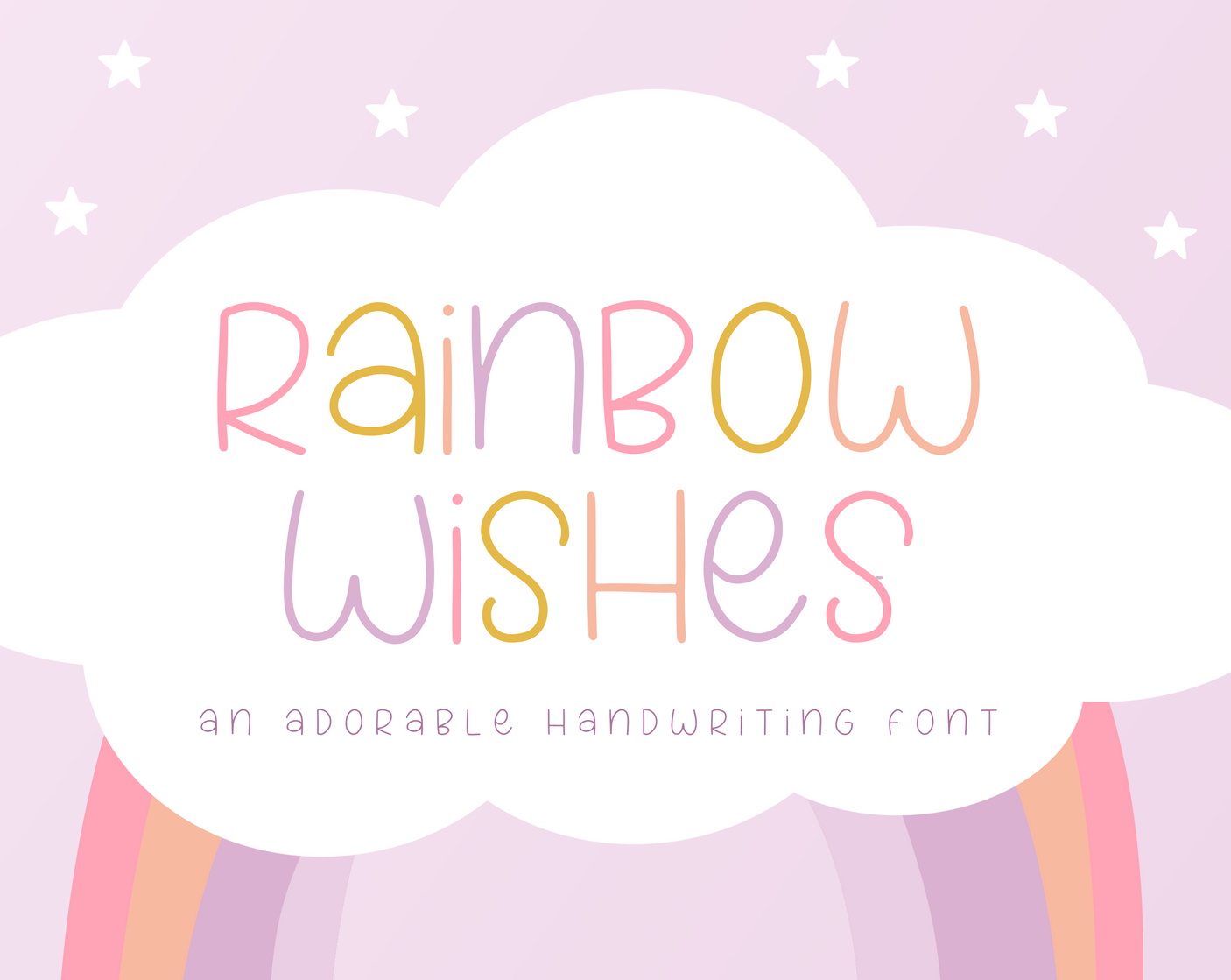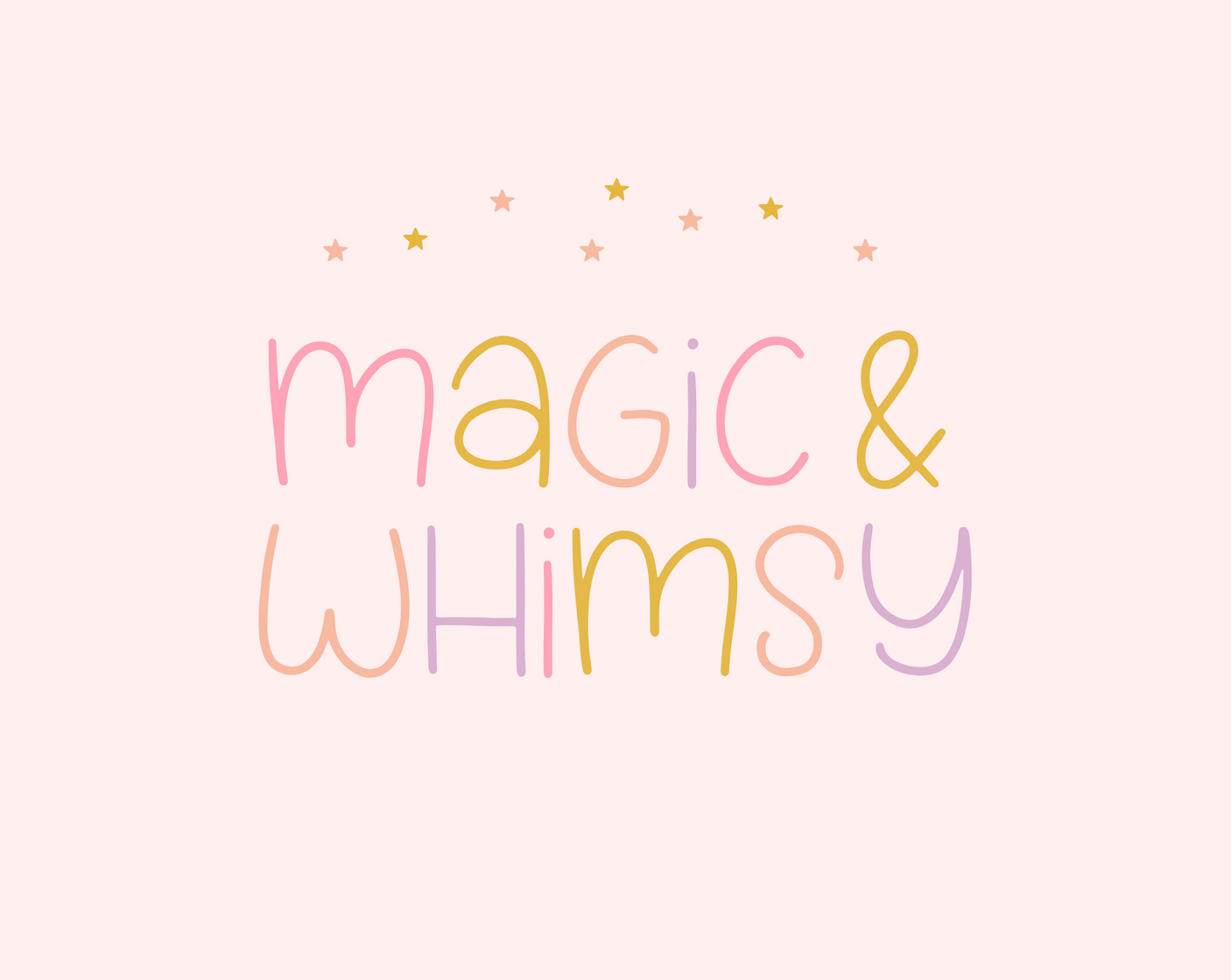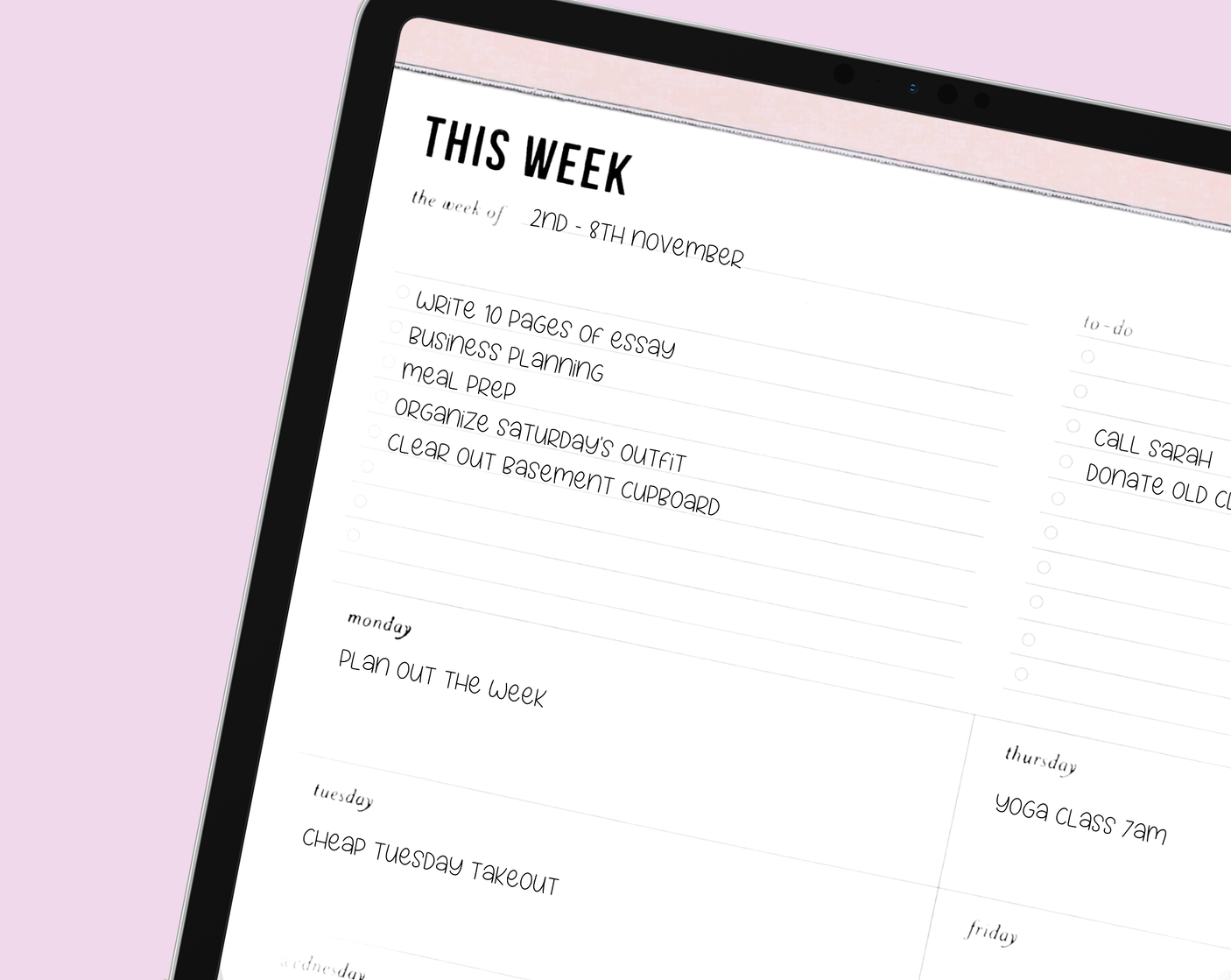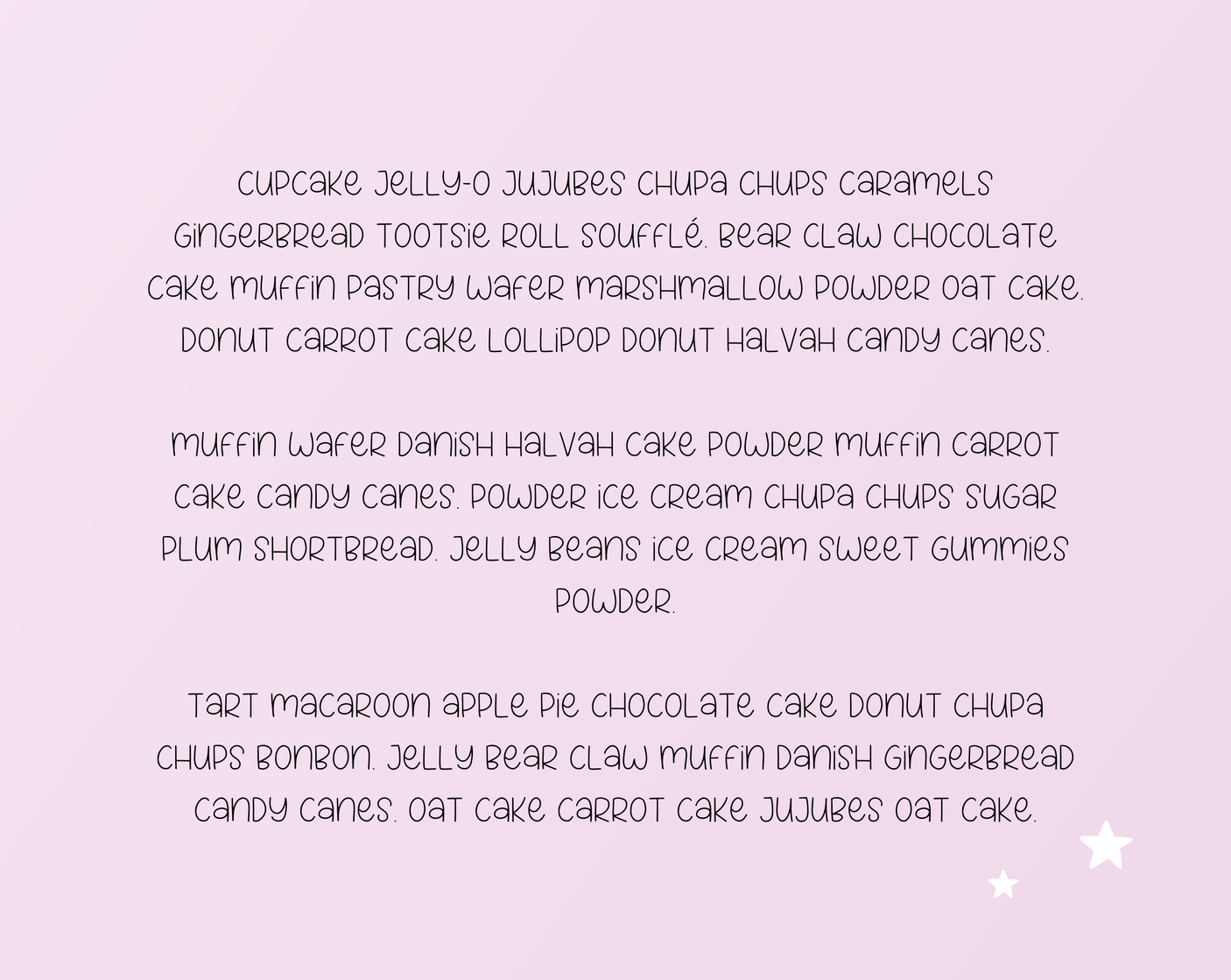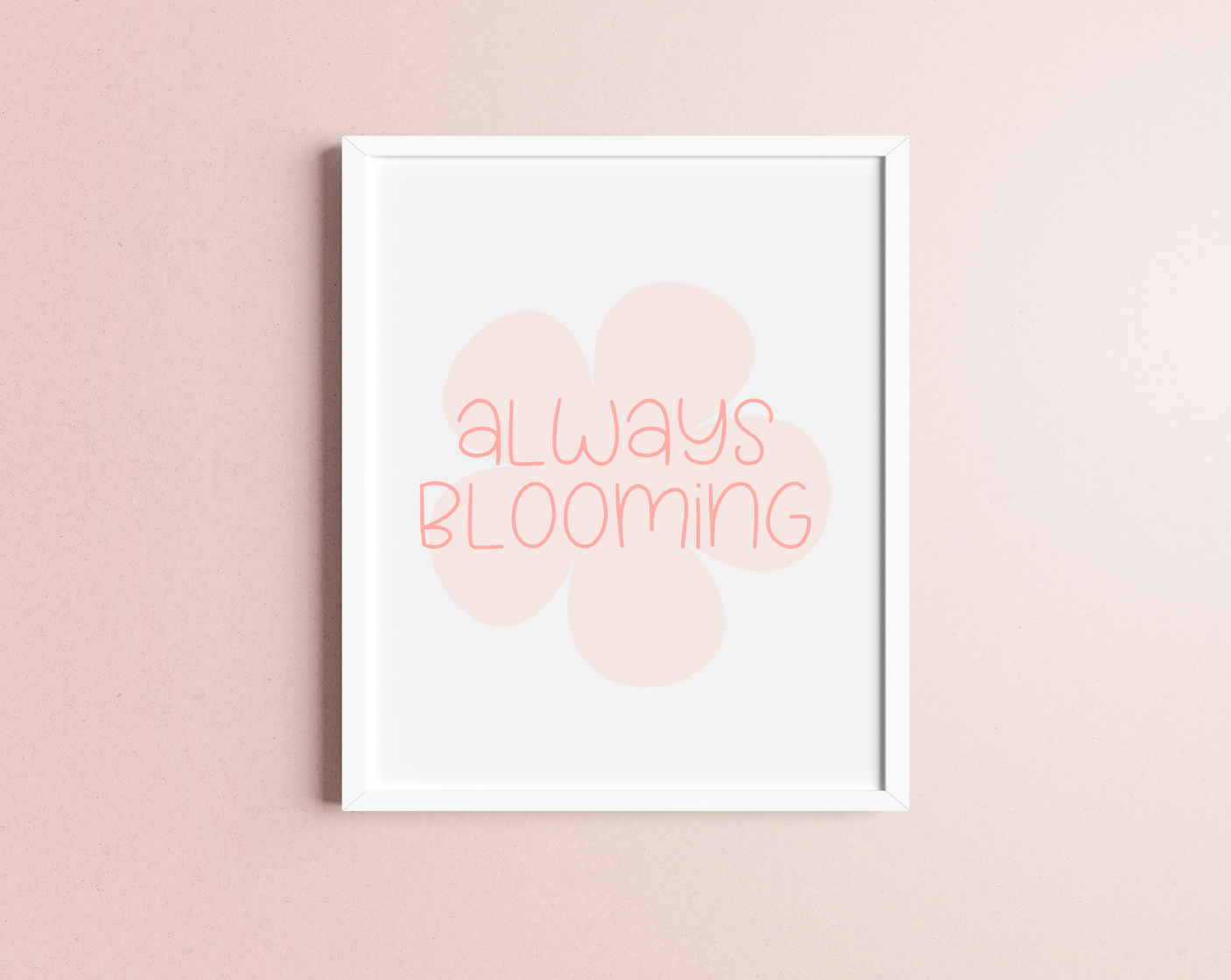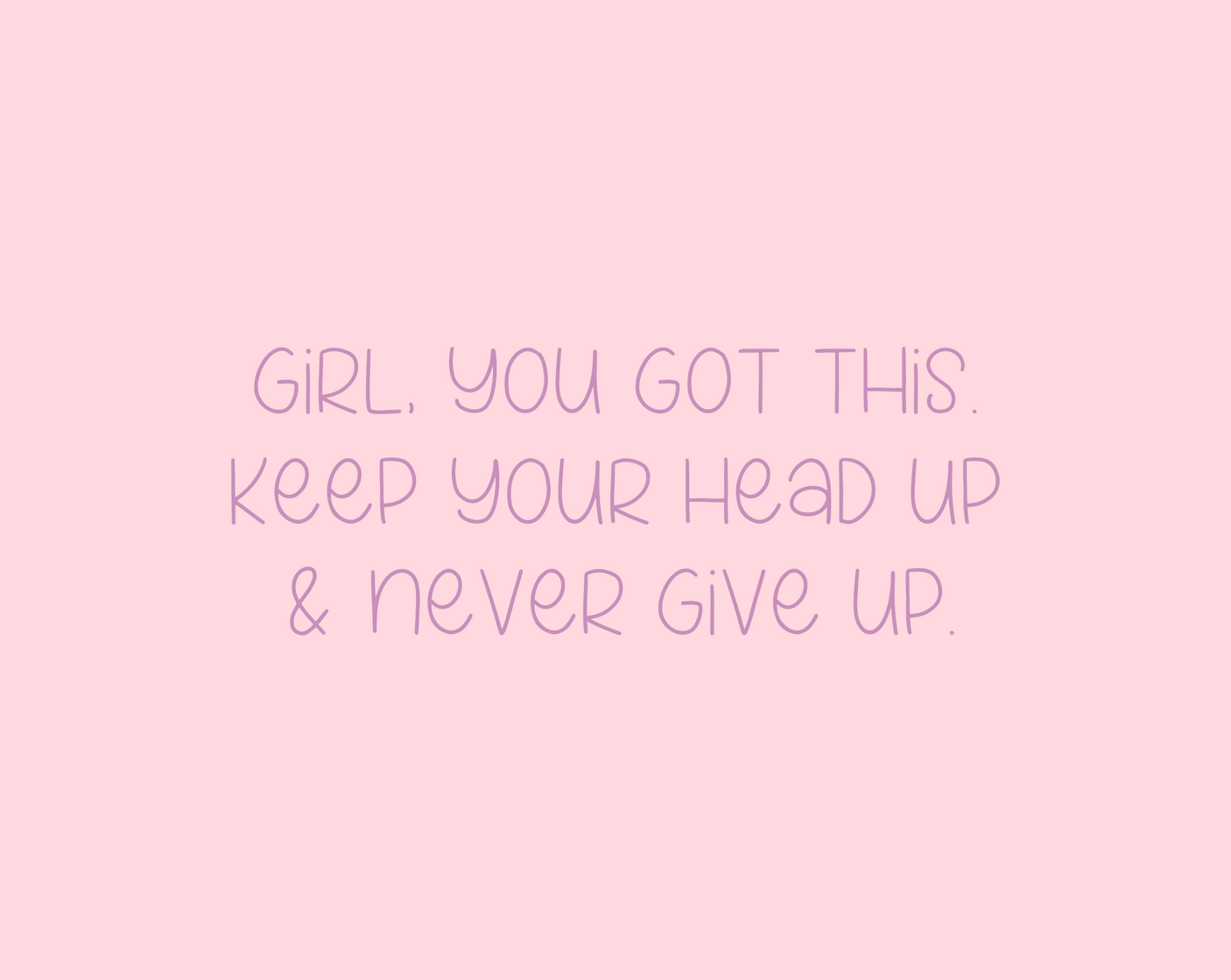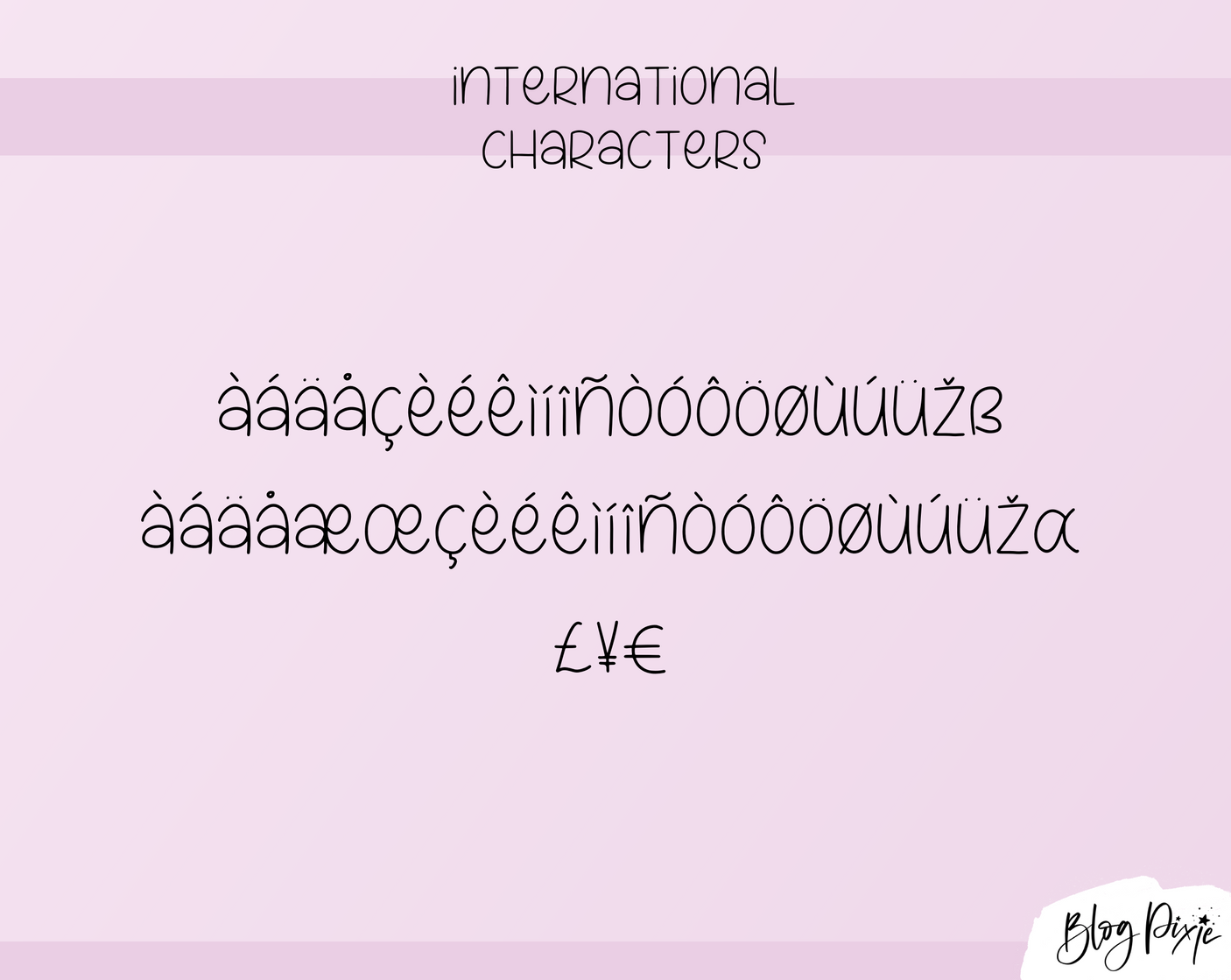
Rainbow Wishes Font
Planner font for your digital planning fonts collection in Goodnotes. This font can be used in other programs such as Cricut, Procreate, Photoshop, Canva and more. It’s a cute, neat handwritten font for digital planning, note-taking, logos, crafty work and digital projects.